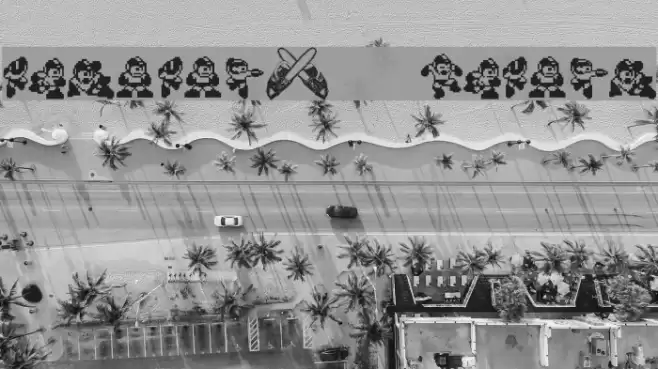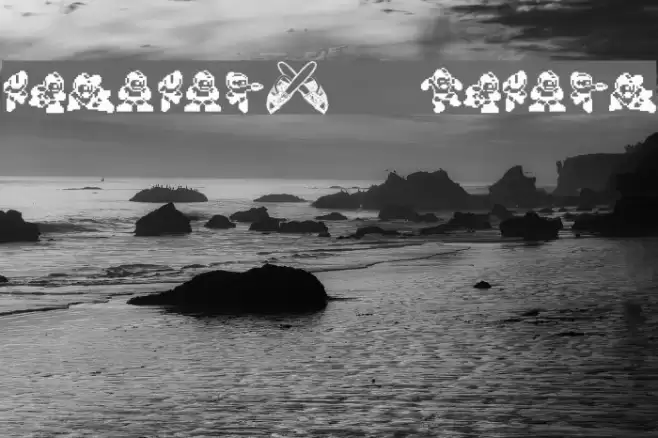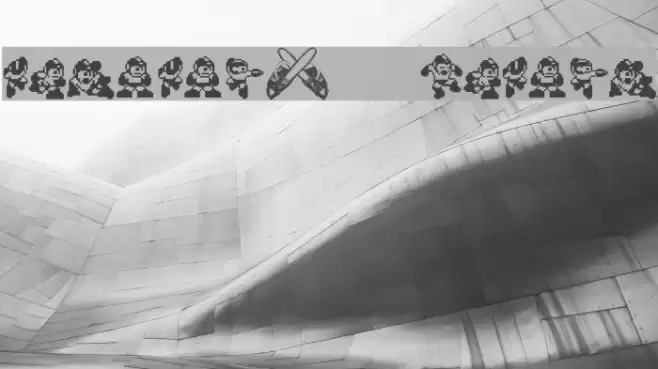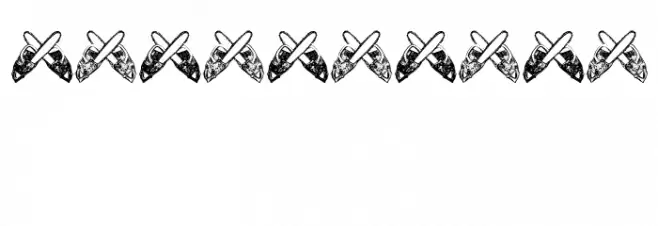
MegaMan2 .TheMang Font
MegaMan2 .TheMang Description
A pixel-art, bitmap-style font composed of character sprites and icons reminiscent of classic 8-bit video games, featuring blocky, high-contrast silhouettes with minimal detail and strong retro gaming aesthetics.
Pixel-art font using 8-bit video game character sprites from Uncategorized fonts.
- Proposed Projects: Retro game interfaces, nostalgic posters, themed party invitations, fan art, digital art projects.
- Overall Style: Retro, Decorative, Pixel-art
- Use Case: Logos, Headlines, Posters, Game UIs